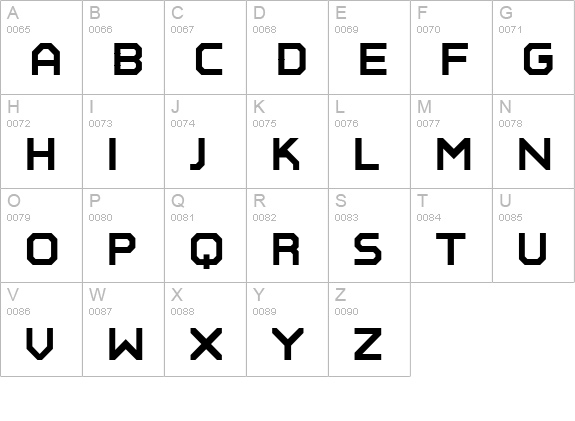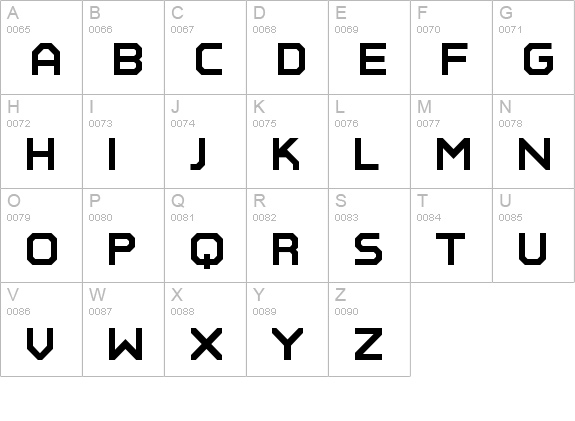
PerfectPixel Font Details
PerfectPixel font is a stunning display typeface that is perfect for adding a touch of elegance and sophistication to any design project. With its sleek and modern lines, this font is sure to catch the eye and make a lasting impression. The PerfectPixel font is meticulously crafted to ensure that each letter is precisely aligned and spaced, resulting in a flawless and pixel-perfect appearance. Its clean and sharp edges give it a professional and polished look, making it ideal for both digital and print designs. One of the best things about the PerfectPixel font is that it is absolutely free to download. Yes, you read that right – this incredible font can be yours at no cost! Simply head over to FontsMarket.com and grab your copy today. Whether you're a designer, artist, or just someone who appreciates beautiful typography, you can't afford to miss out on this amazing opportunity. Whether you're designing a logo, creating a website, or crafting a flyer, the PerfectPixel font will elevate your project to new heights. Its versatility allows it to be used in a variety of design contexts, from elegant and luxurious to modern and edgy. So why wait? Don't miss out on this incredible font that is freely available to download at FontsMarket.com. Add a touch of perfection to your designs with the PerfectPixel font and watch as it captivates your audience and sets your work apart from the rest.